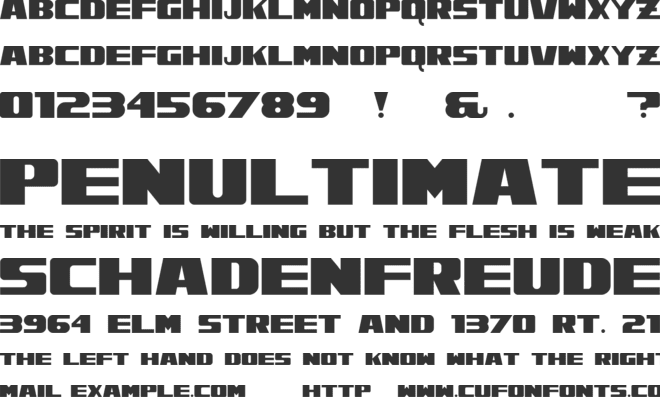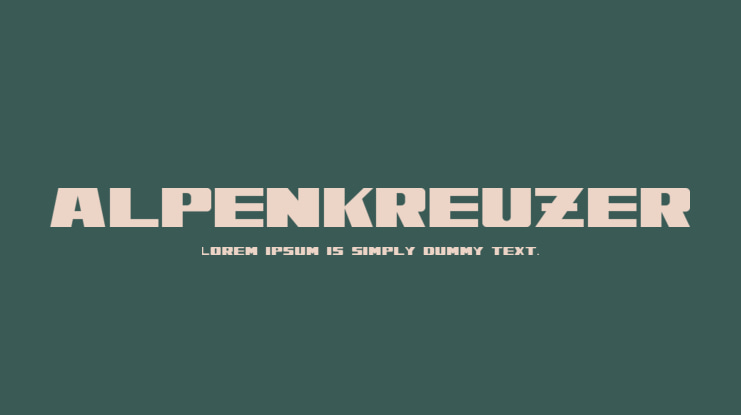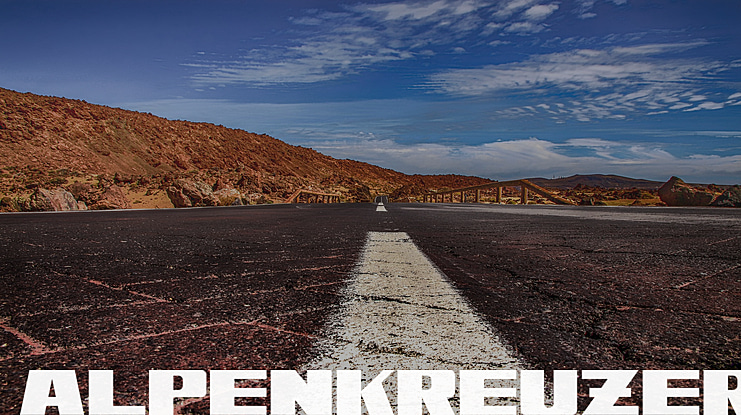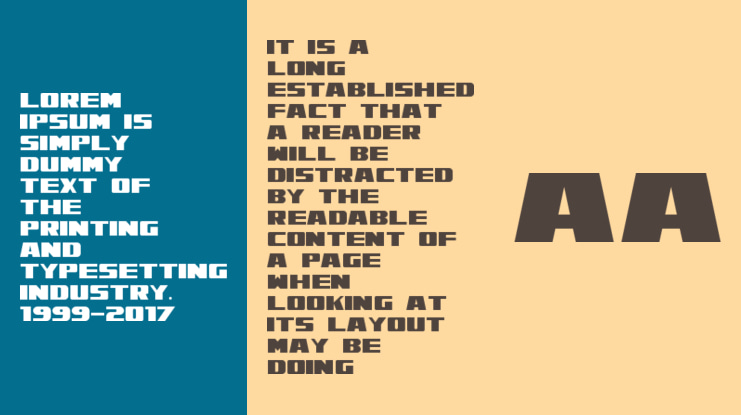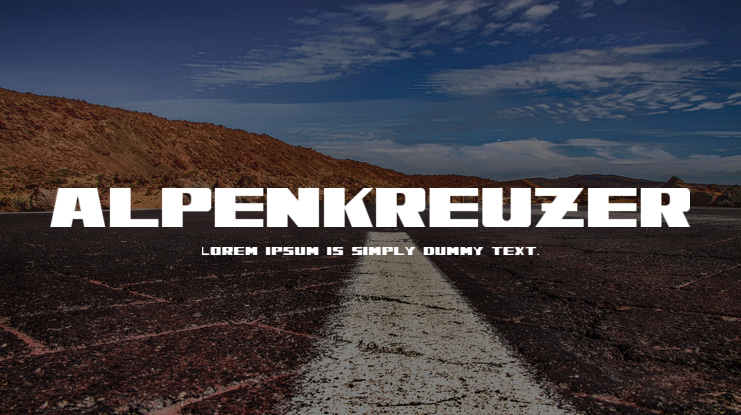
Alpenkreuzer Font
A somewhat awkward and clumsy homemade font I found on a sign that a local caravan salesman had made. But I liked it, and added to it to make this font. Perfect for anything big and cheap.